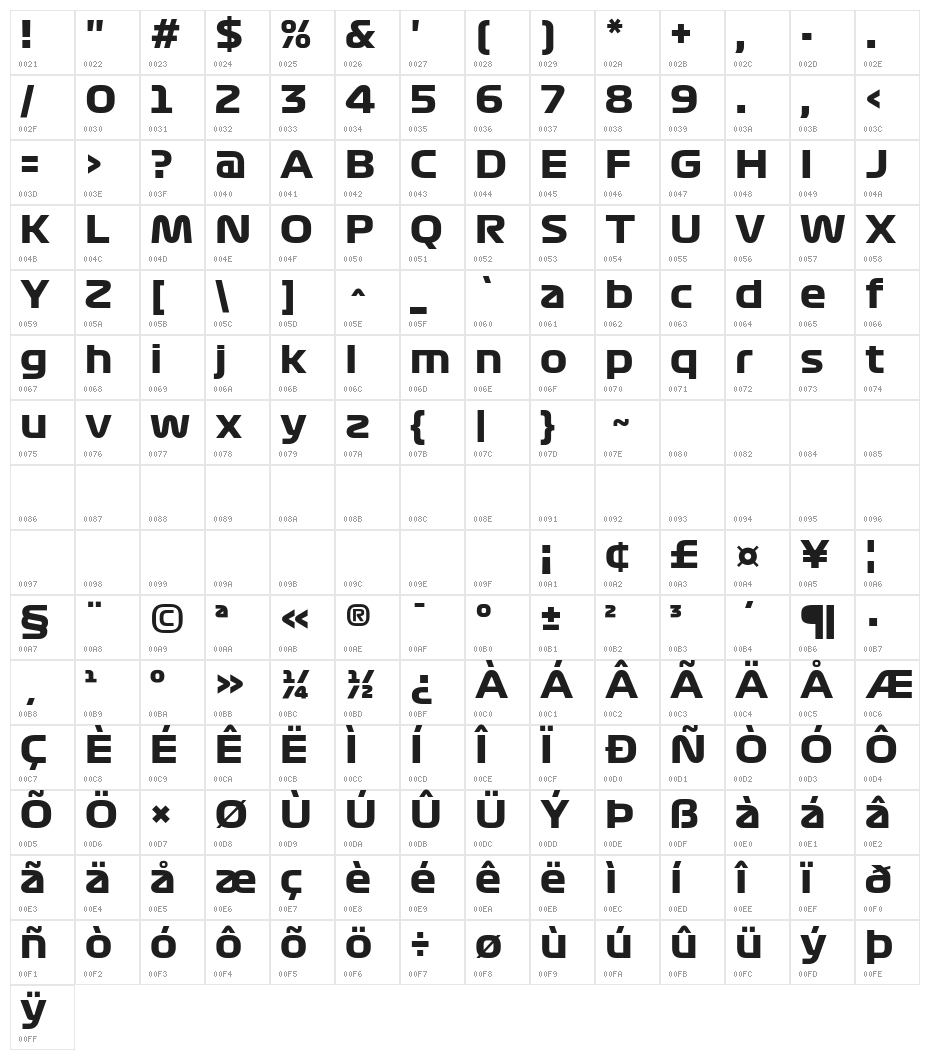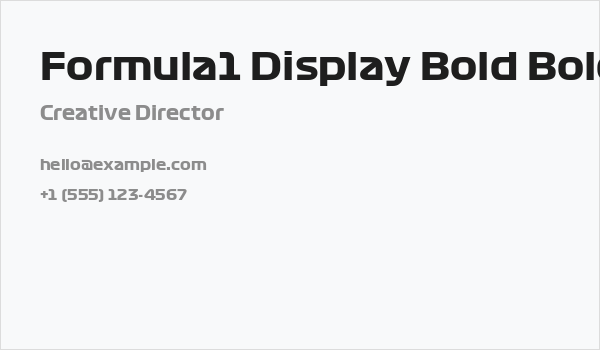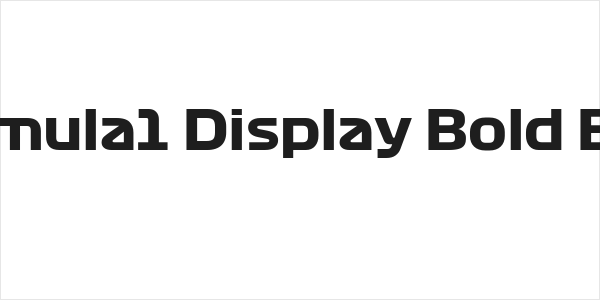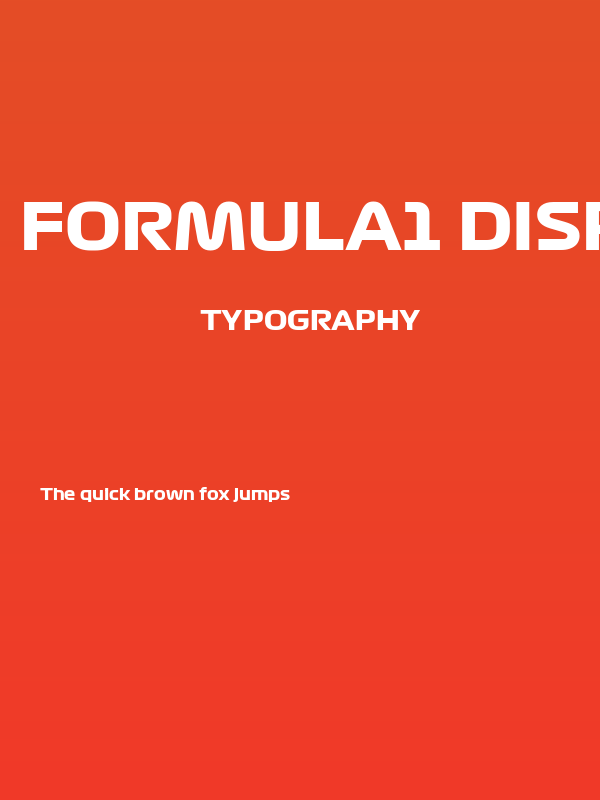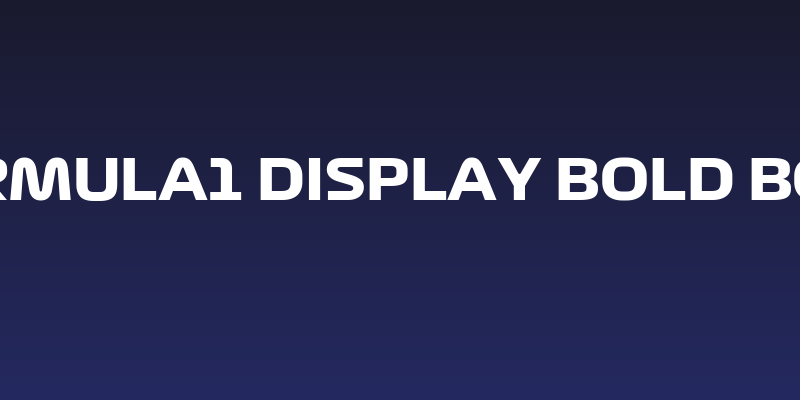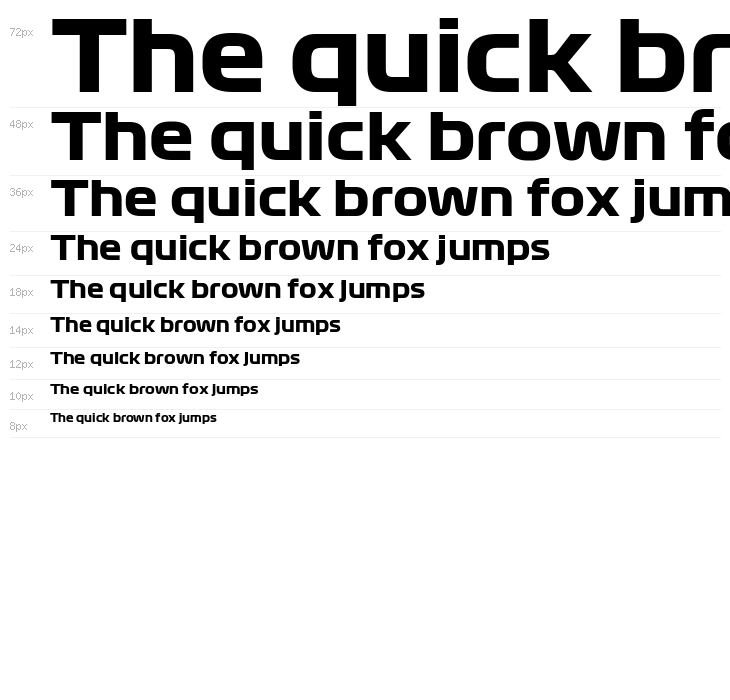
Formula1 Display Bold Bold Font
Formula1 Display Bold Bold Description
This font features a bold and modern design with a strong presence. The characters are well-defined with a uniform stroke width, creating a clean and impactful appearance. The uppercase and lowercase letters maintain a consistent style, with rounded edges that add a touch of softness to the otherwise robust structure. The numerals are equally bold, ensuring readability and emphasis. Special characters are included, maintaining the same bold and modern aesthetic. This font is ideal for projects that require a strong visual impact and clear communication.
| Proposed Projects | Ideal for branding, headlines, posters, and any design needing a strong visual impact. |